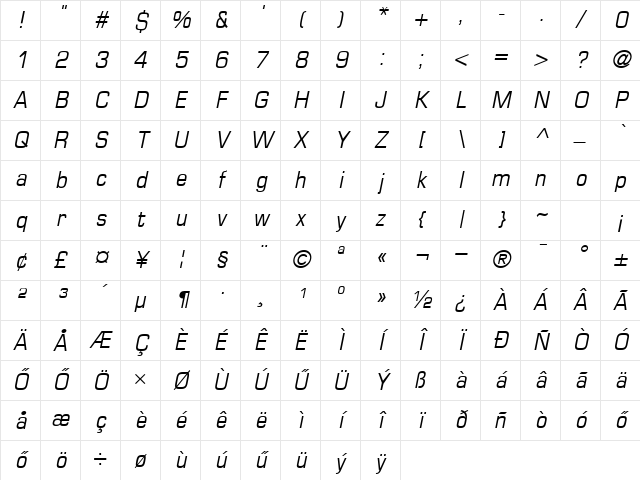
Hu_Style Cn  Oblique Regular
Design Context for Hu_Style Cn Oblique
Hu_Style Cn Oblique is a composed and adaptable typeface that performs quietly and consistently across a wide range of design contexts. The slanted form adds forward momentum and visual energy.
Pro Tip: Use Hu_Style Cn Oblique for emphasis, pull quotes, and subheadings where its slanted energy can add rhythm to the layout.